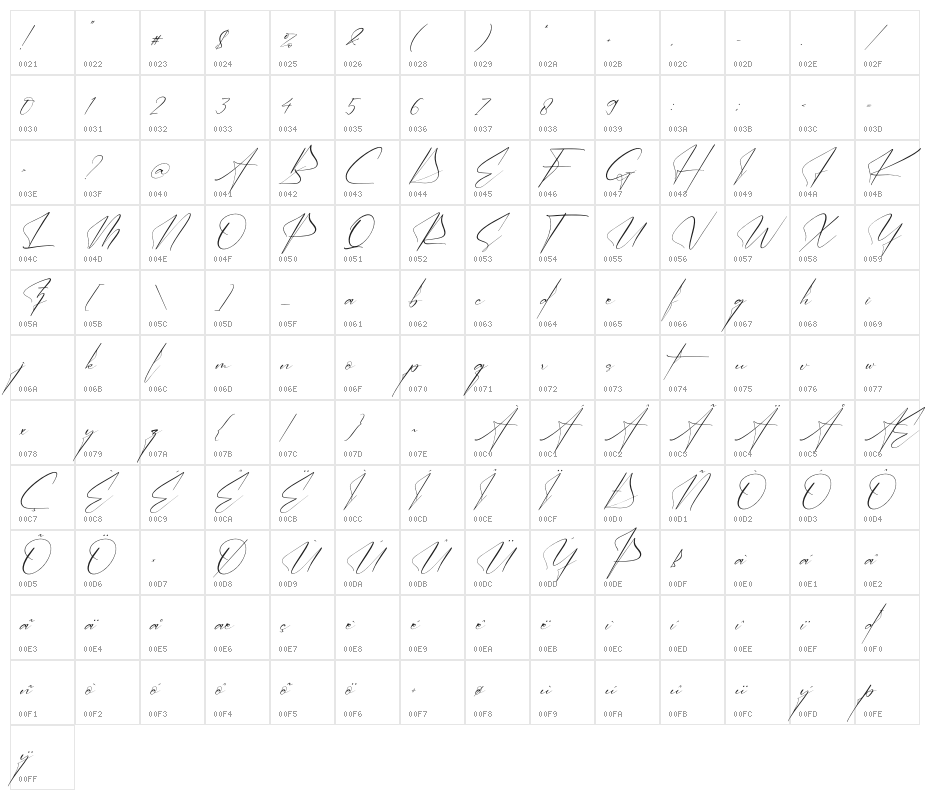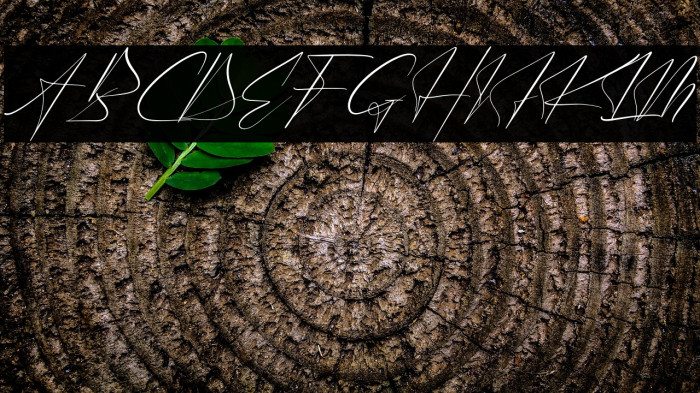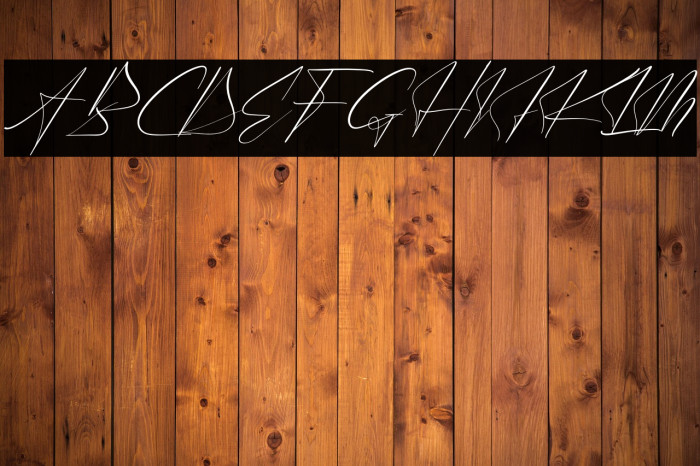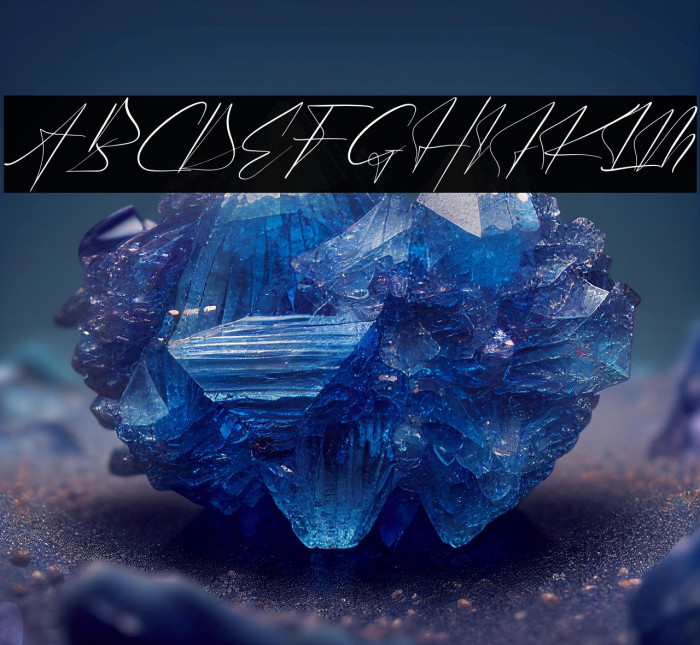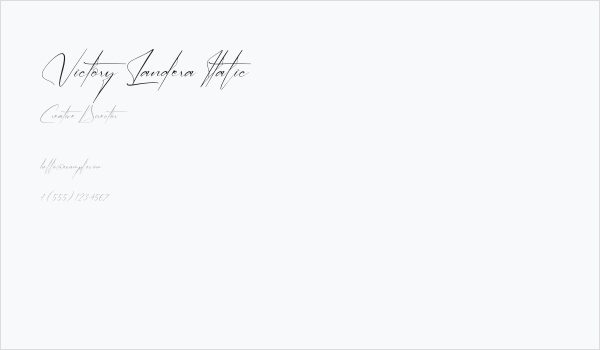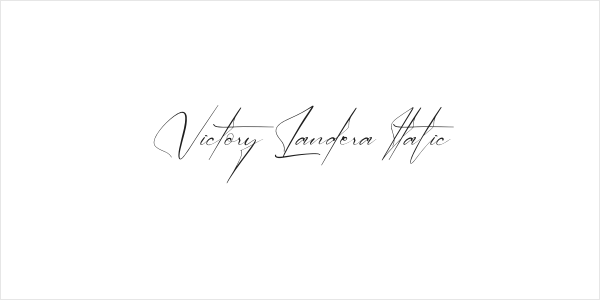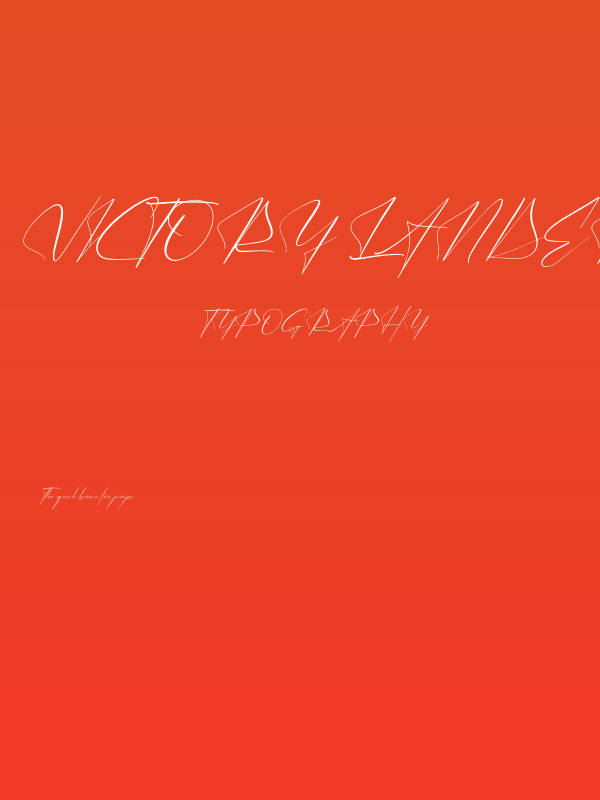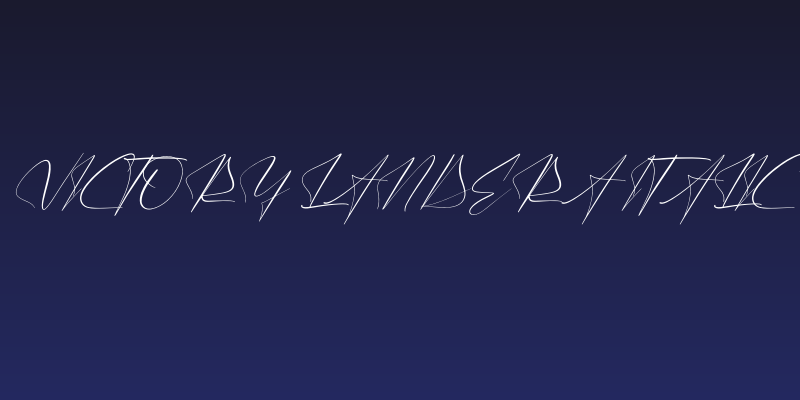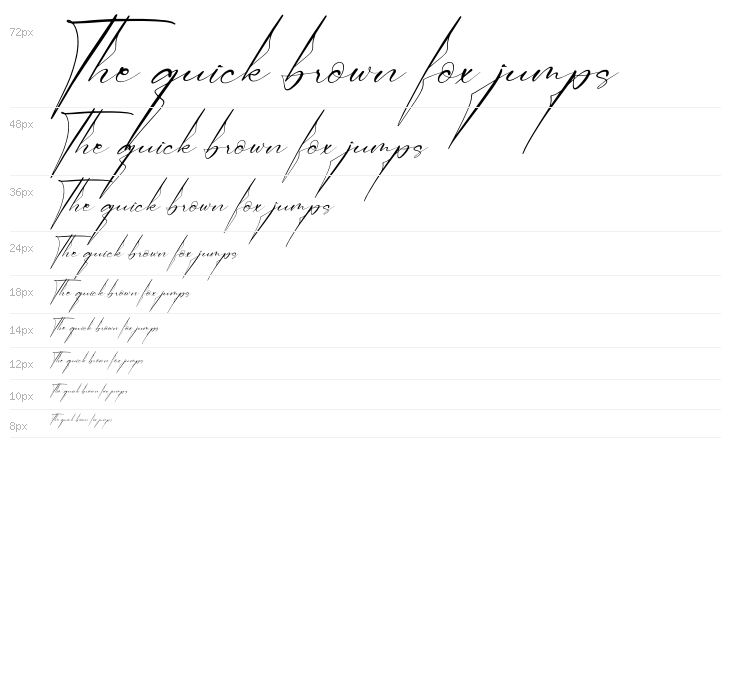
Victory Landera Italic Font
Victory Landera Italic Description
This font exhibits a dynamic and flowing handwritten style, characterized by its elegant and elongated letterforms. The strokes are thin and delicate, with a noticeable slant that adds a sense of motion and fluidity. Each character is crafted with a distinct flair, featuring sharp angles and smooth curves that create a sophisticated and artistic appearance. The font maintains a consistent rhythm throughout, with a harmonious balance between the ascenders and descenders. The numerals and special characters are designed to complement the overall aesthetic, ensuring a cohesive look across all text elements.
| Overall Style | Elegant, Artistic |
| Proposed Projects | Ideal for wedding invitations, personal branding, artistic projects, and elegant stationery design. |